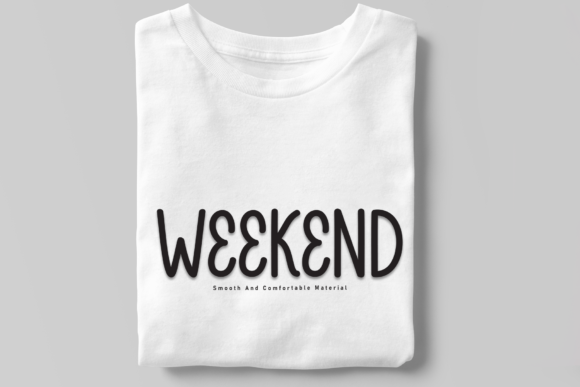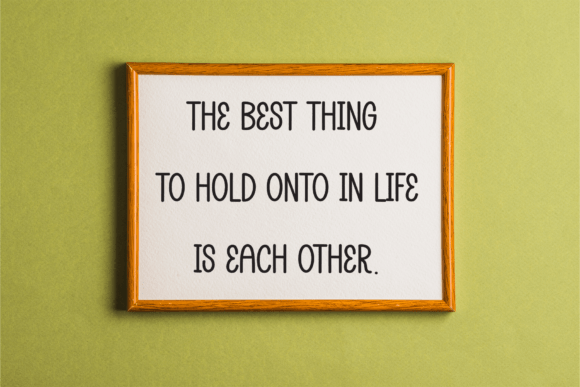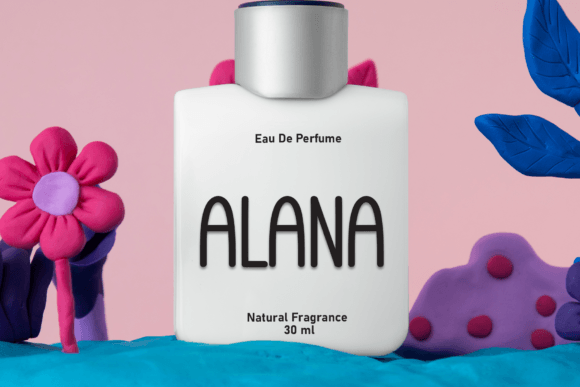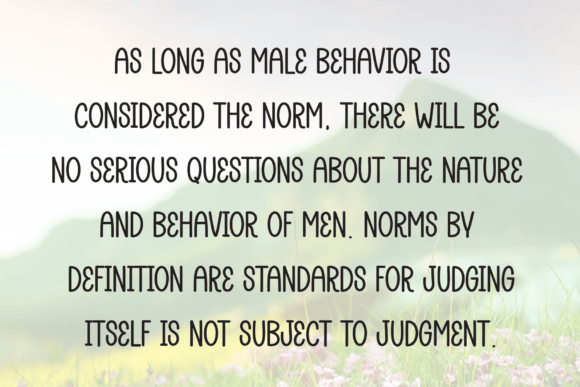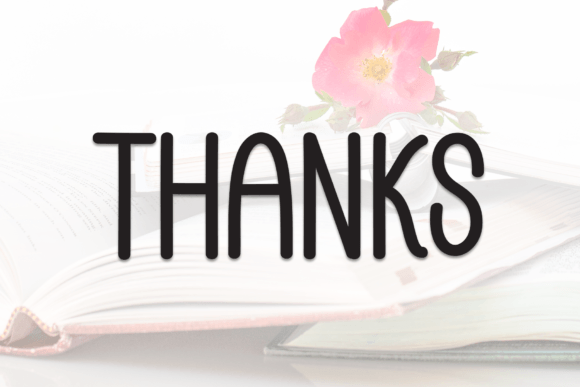
The Sweet Spot: Discovering the Charm of Bookmarks Font
I’ll never forget the time I was working on a wedding invitation project, and my client asked for a font that was “fun, yet elegant.” I scoured the internet, tried out dozens of fonts, but nothing seemed quite right. That was until I stumbled upon Bookmarks Font. This sweet and friendly handwritten font won me over with its cute and fun vibe, and it ended up being the perfect fit for the project. In this article, I’ll share my experience with Bookmarks Font, and explore its features, uses, and alternatives.
So, what makes Bookmarks Font so special? Here are a few things I love:
- ✨ Unique and playful feel: Bookmarks Font has a distinct, hand-crafted look that’s perfect for adding a personal touch to your designs.
- ✅ Ease of use: This font is incredibly easy to read and works well in a variety of contexts, from wedding invitations to social media graphics.
- 💕 Emotional connection: The font’s friendly and approachable vibe makes it easy to create designs that feel warm and inviting.
Of course, no font is perfect, and Bookmarks Font has a few small quirks:
- 🤔 Limited formal use: While Bookmarks Font is amazing for informal designs, it may not be the best choice for more formal projects, like business reports or academic papers.
- ⚠️ Occasional kerning issues: As with any font, you may encounter some kerning issues, especially when using it in combination with other fonts.
- Experiment with OpenType features, like Stylistic Alternates, to add more variety to your text.
The Story Behind Bookmarks Font
Bookmarks Font was designed with the intention of creating a friendly and approachable typeface. The designer aimed to craft a font that would evoke a sense of warmth and personality, perfect for designs that require a human touch. While the exact story behind the font’s creation may be unknown, its charm and character have captured the hearts of many designers and crafters.
| Q: What type of projects is Bookmarks Font best suited for? | A: Bookmarks Font is ideal for informal designs, such as wedding invitations, social media graphics, and greeting cards. |